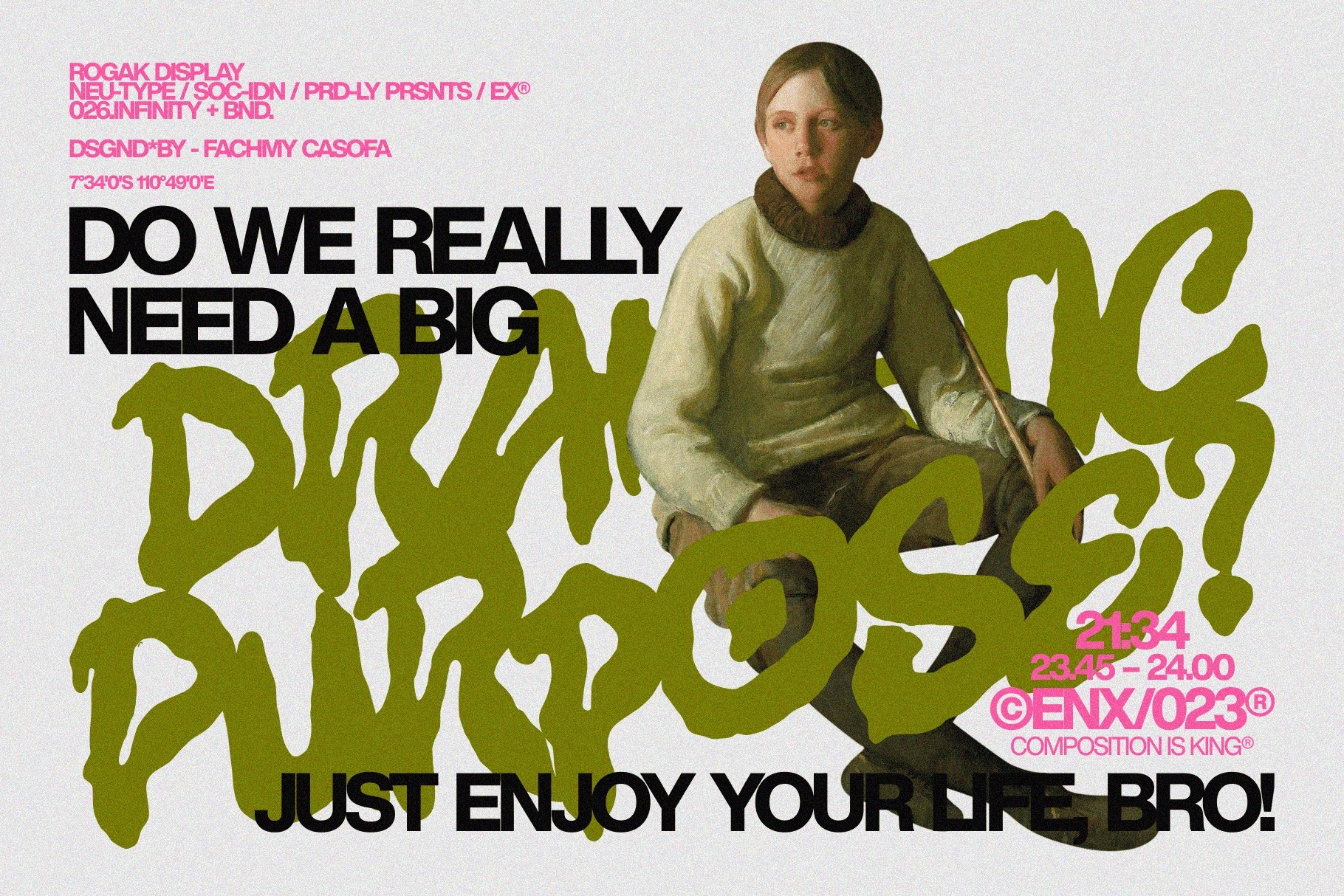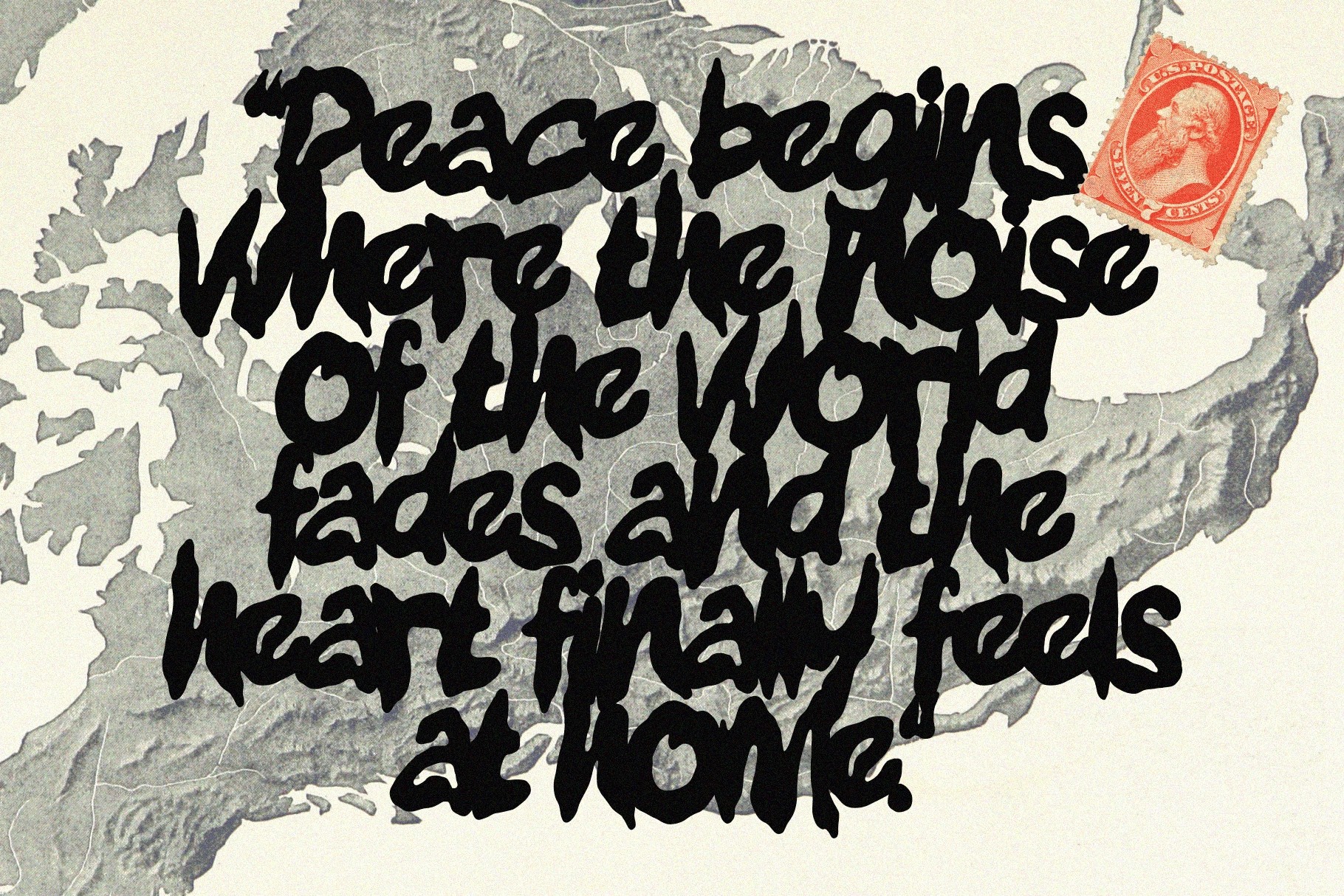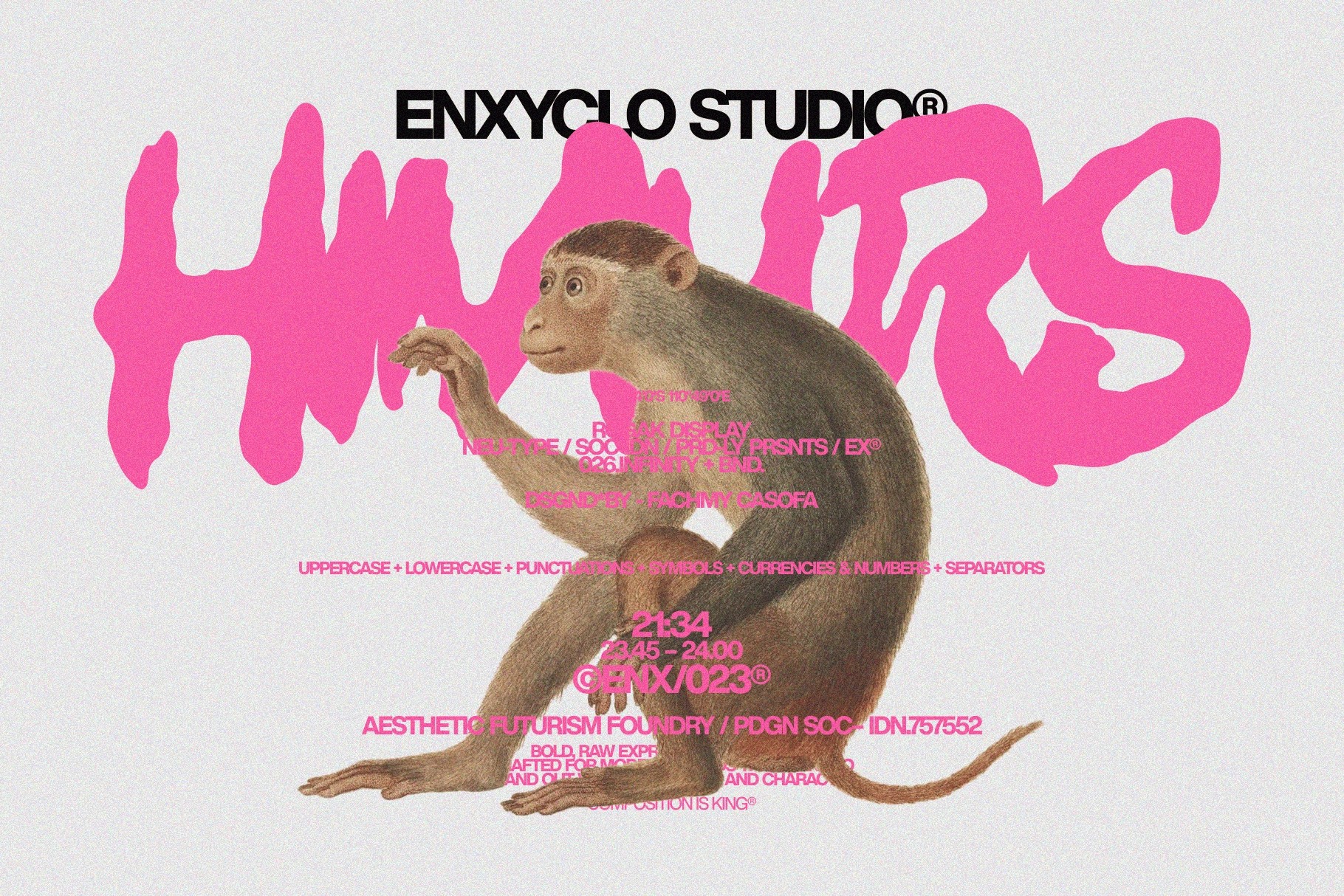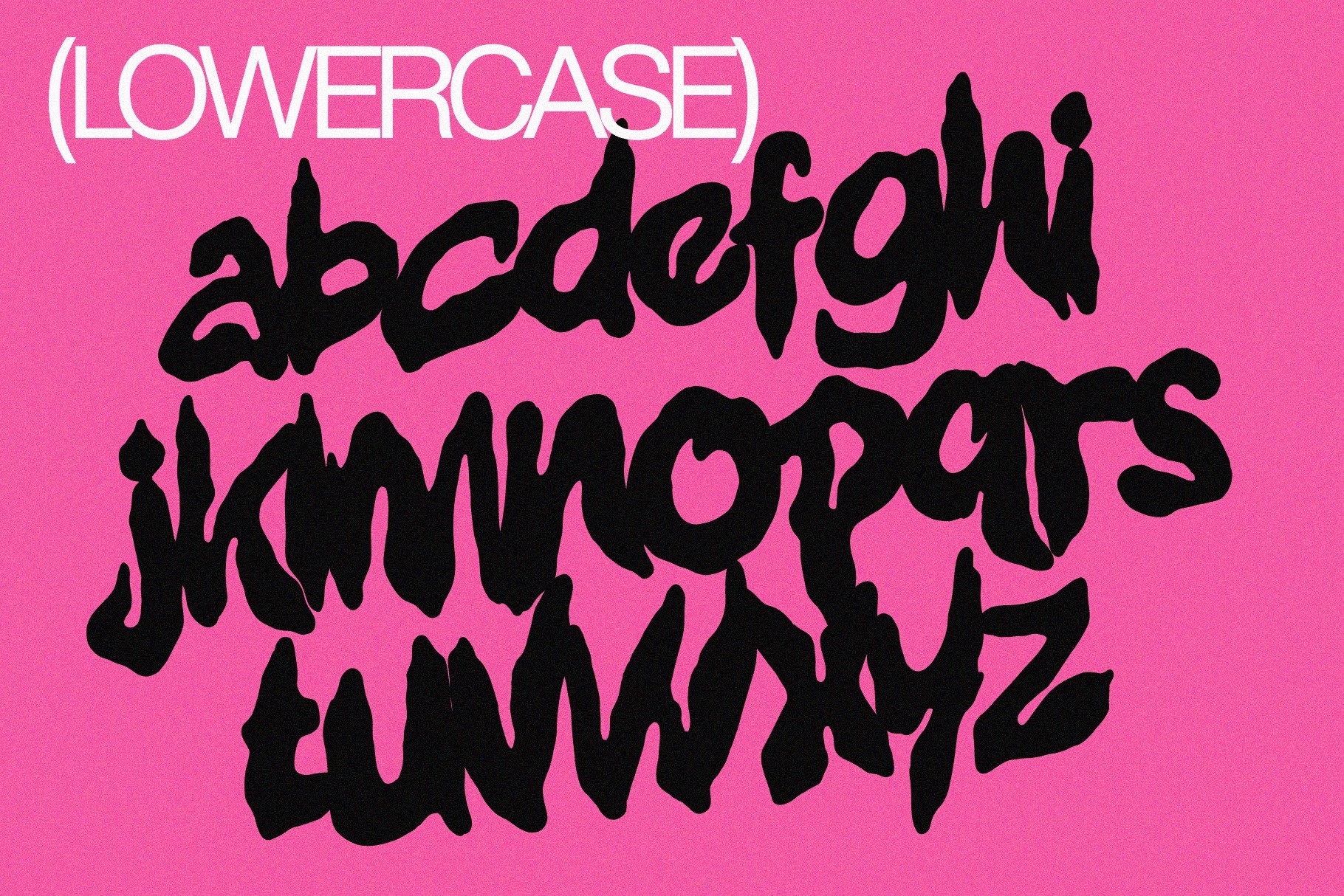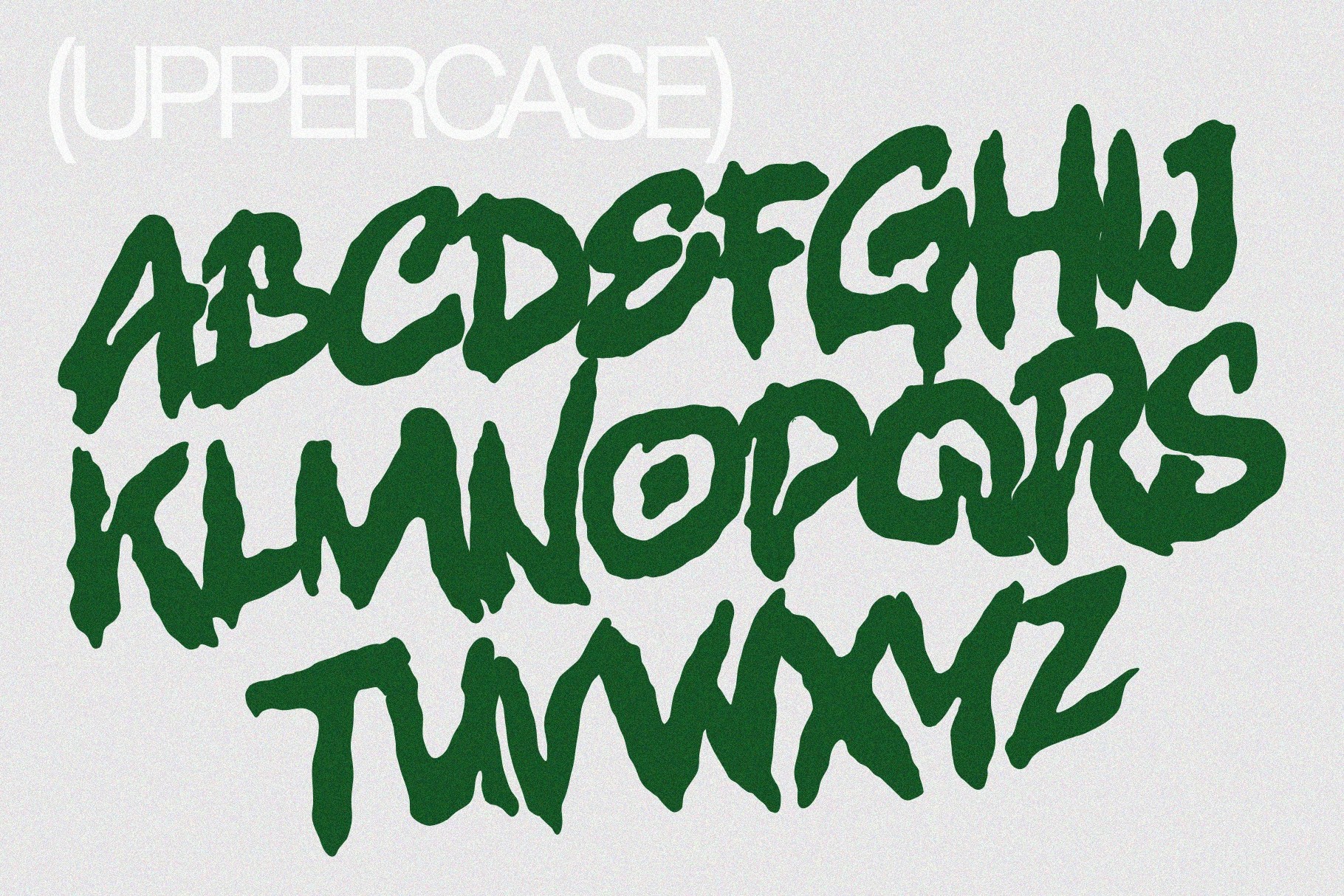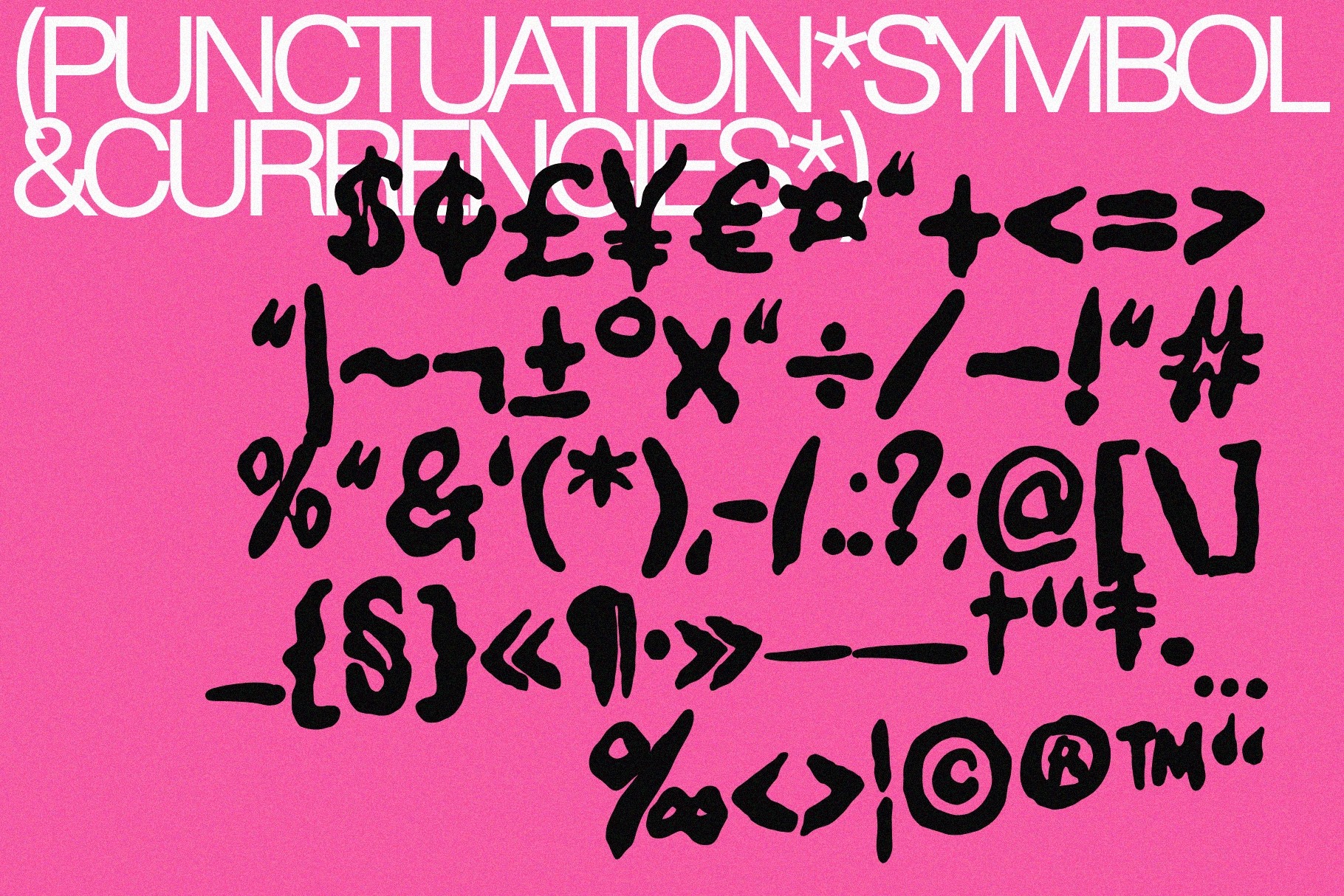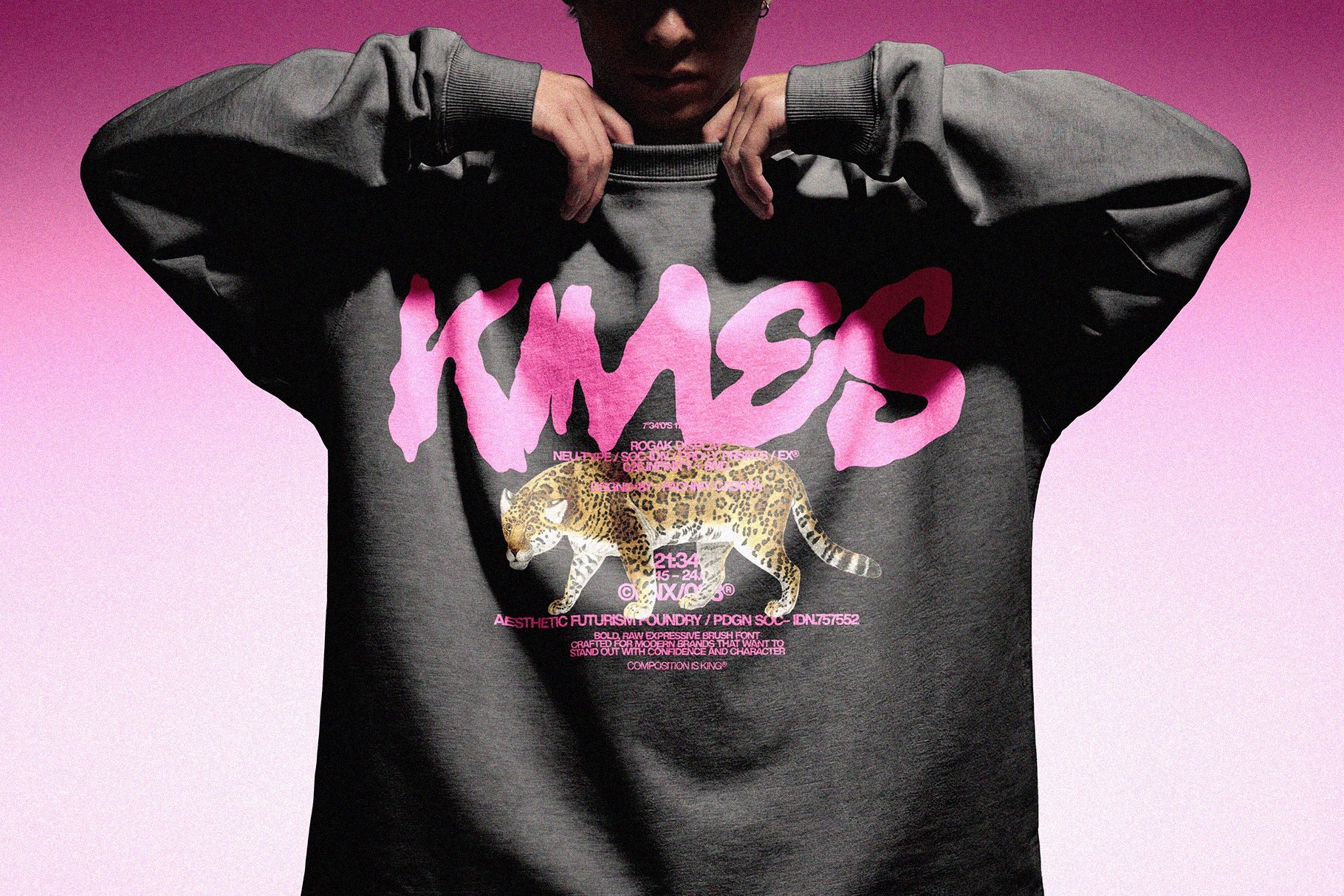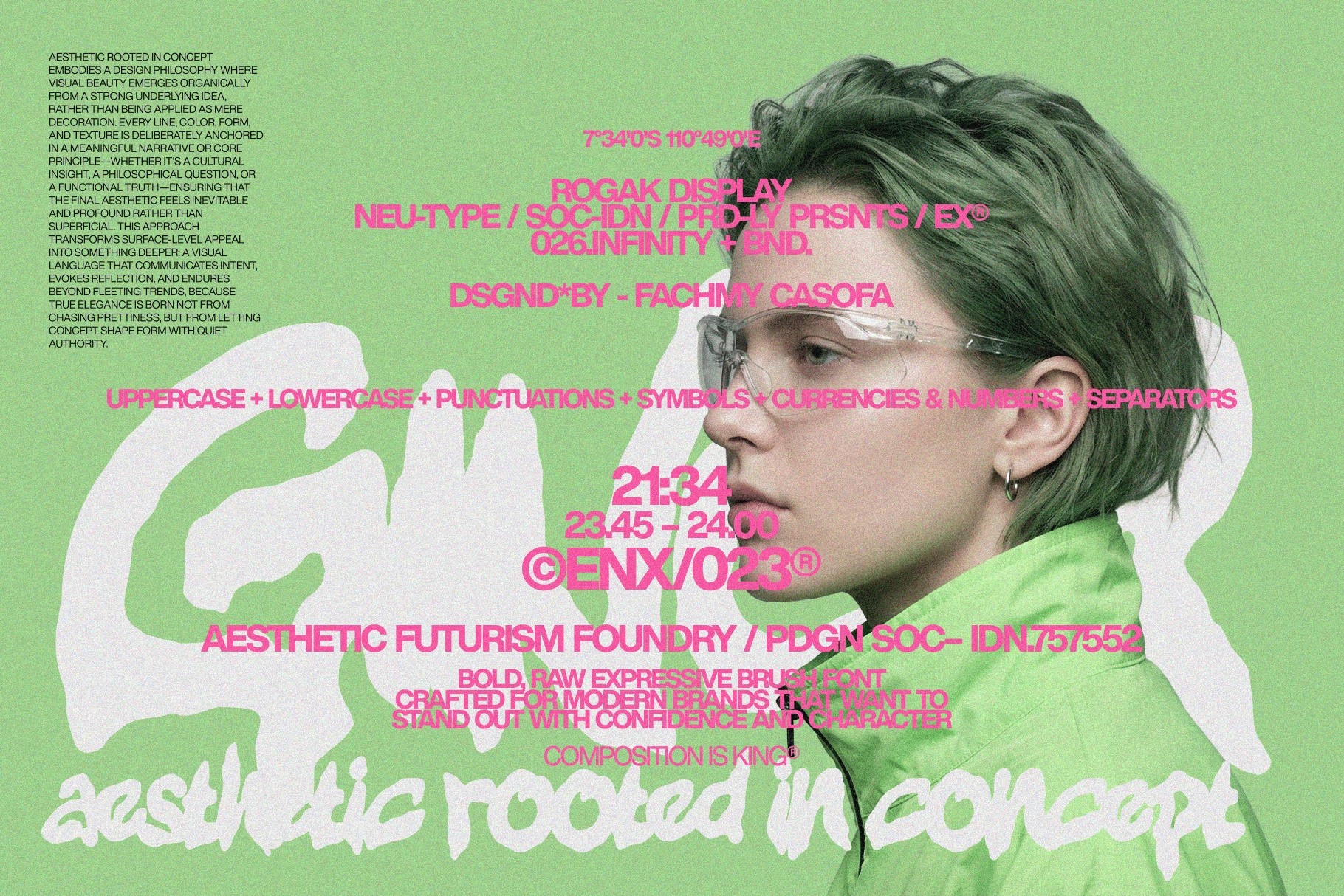
Rogak - Grunge Brush Font
Rogak – Grunge Brush Font is a bold hand-drawn typeface that captures the raw energy of expressive brush strokes and textured lettering. Built from gritty, organic forms, Rogak embraces the beauty of imperfection while maintaining a strong and modern visual structure. The rough edges and handcrafted character give the font a fearless, authentic attitude that instantly adds personality and depth to any design.
Designed for creatives who want impactful typography, Rogak works perfectly for logos, branding systems, posters, packaging, and social media visuals. Its expressive letterforms create strong visual presence while remaining readable and versatile, making it ideal for contemporary branding, creative agencies, and projects that require bold, textured typography.
- Uppercase & Lowercase Letters
- Punctuation Marks
- Symbols & Currency Characters
- Hand-drawn Grunge Brush Style